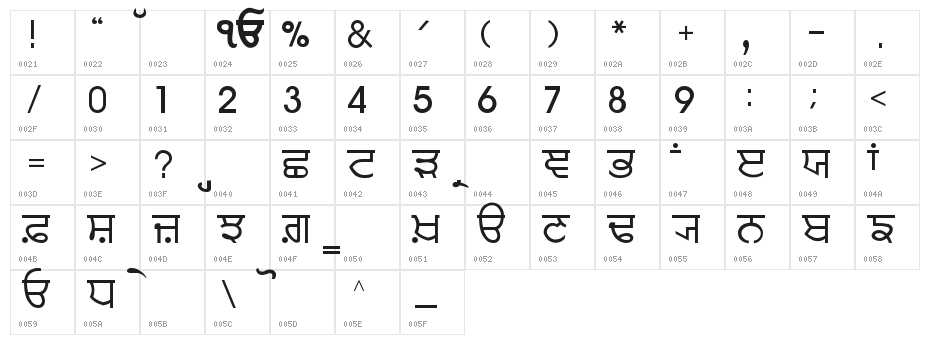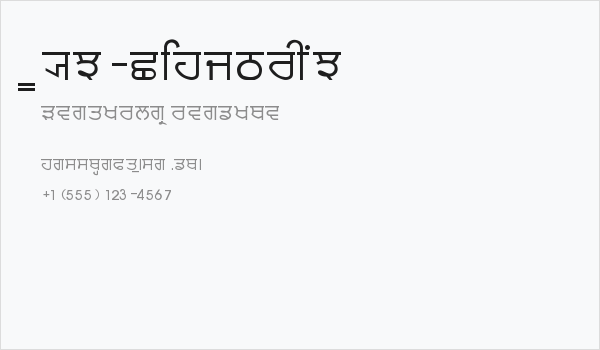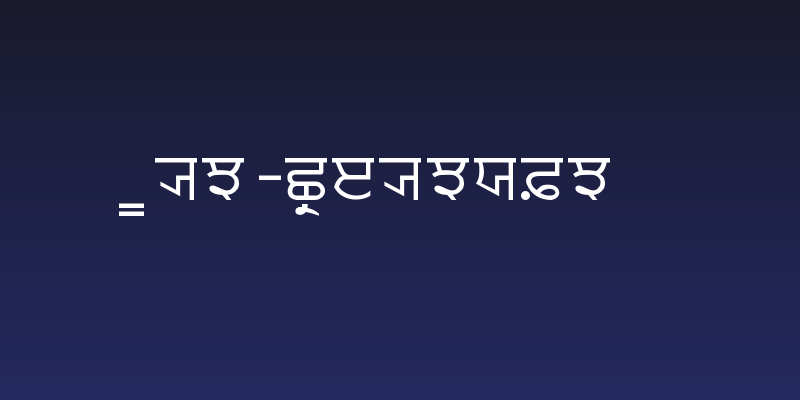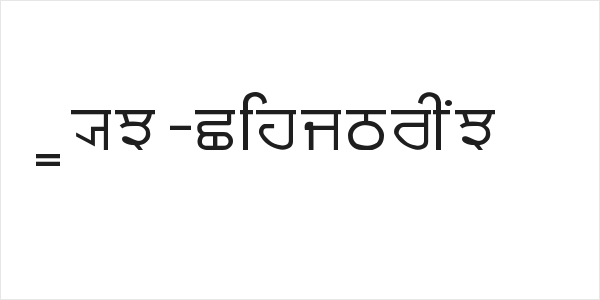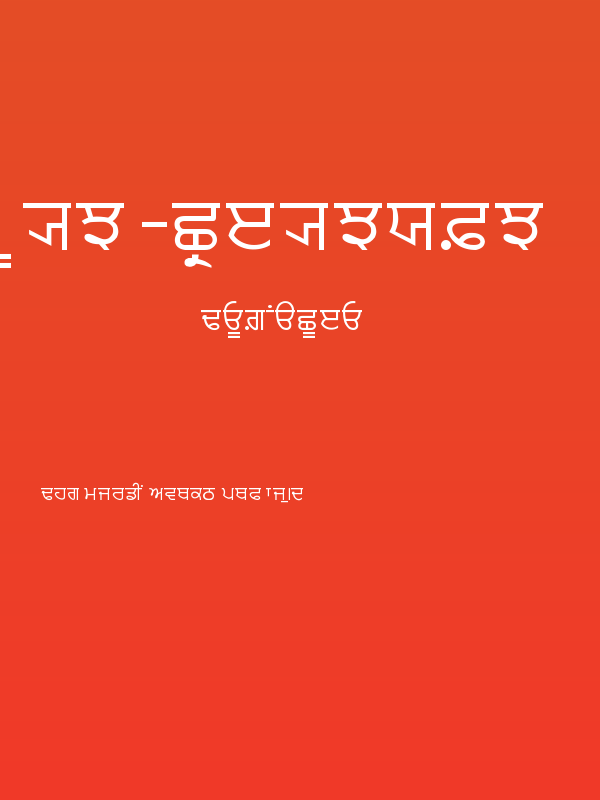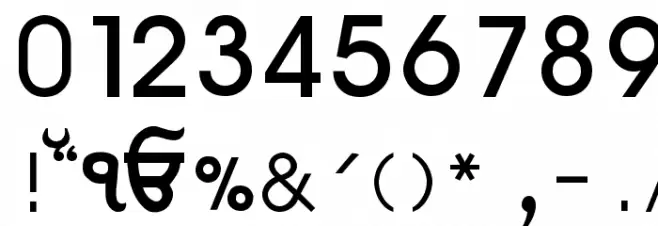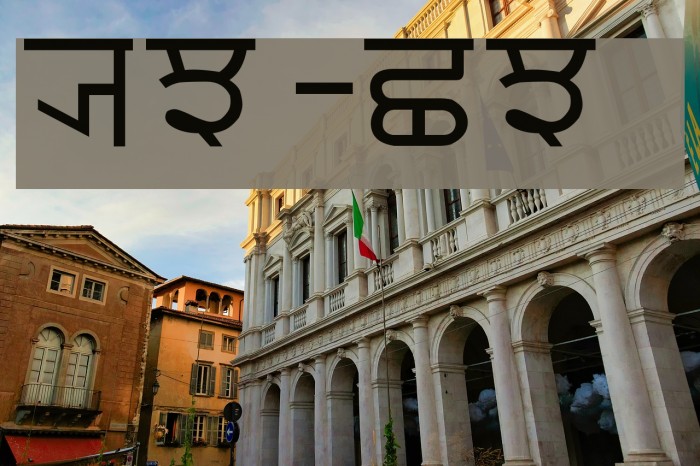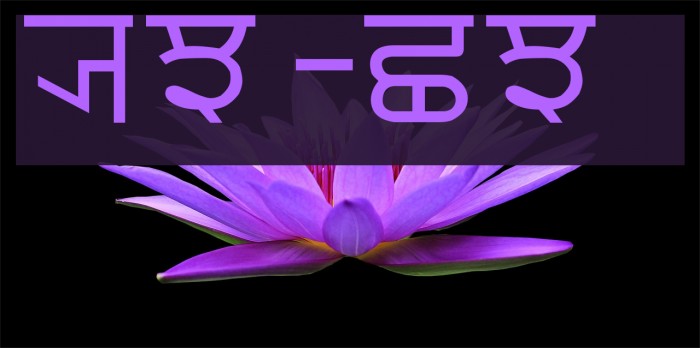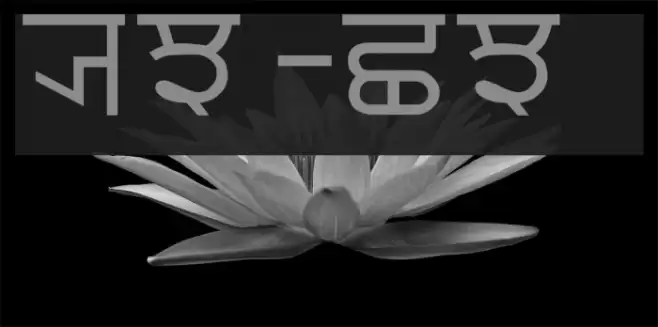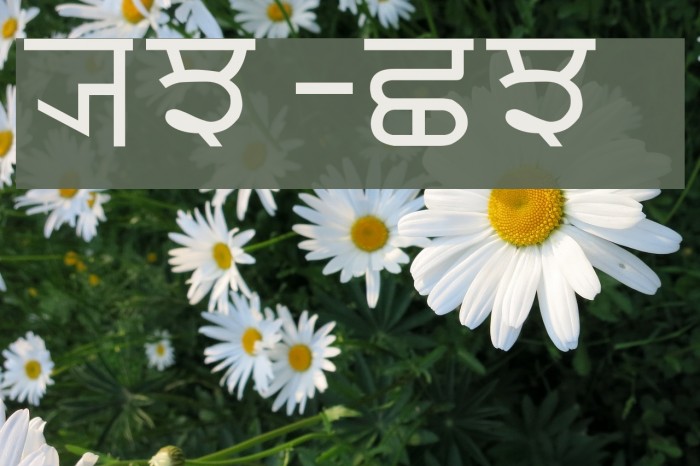
PUN-AdhunikN Font
PUN-AdhunikN Description
This font features a modern and clean design with a focus on readability and clarity. The characters are well-defined with a balanced stroke width, making it suitable for both digital and print media. The numerals are bold and distinct, ensuring they stand out in any context. Special characters are included, providing versatility for various applications. The overall appearance is sleek and professional, making it ideal for contemporary design projects.
| Use Case | Headlines, Body text, Logos |
| Proposed Projects | Ideal for branding, advertising, digital interfaces, and editorial design. |